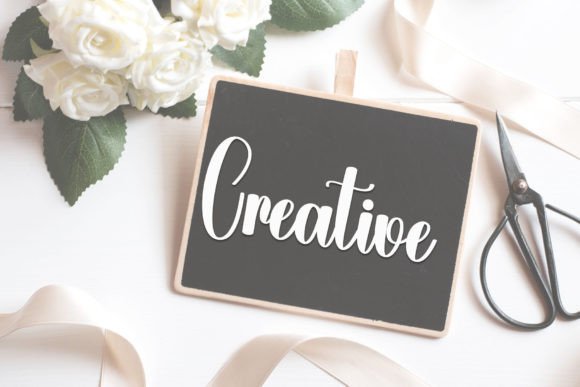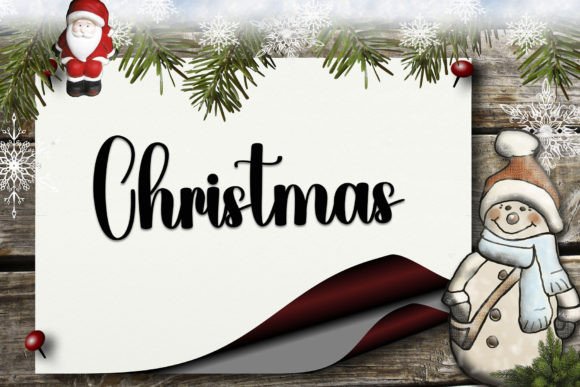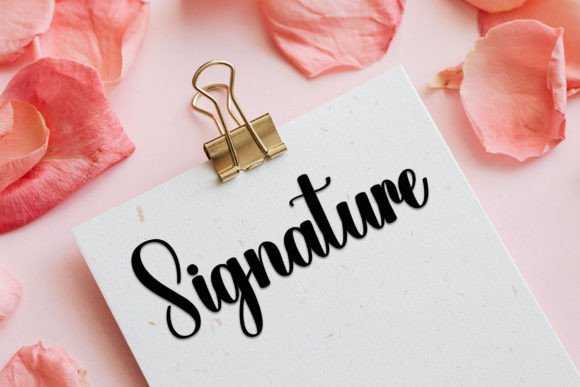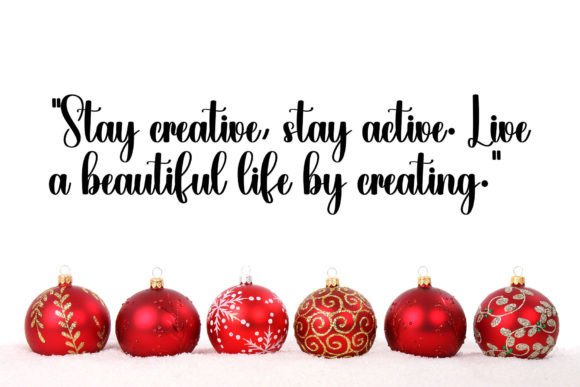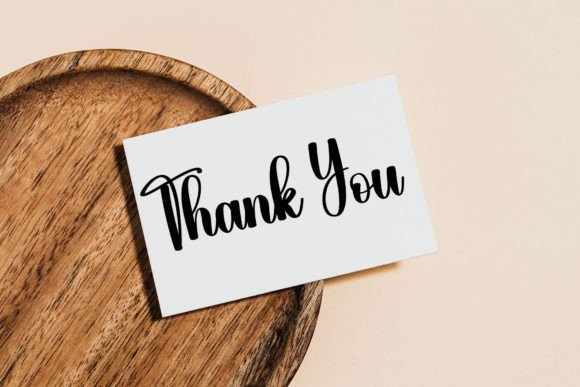
The Perfect Autumn Font: Elevate Your Designs with Timeless Elegance
I’ll never forget the time I was working on a fall-themed project for a client, and I just couldn’t find the right font to capture the essence of the season. The design needed to be elegant, yet modern, and I spent hours scouring the internet for the perfect match. That’s when I stumbled upon the Autumn Font, a trendy handwritten font that instantly became my go-to. In this article, I’ll share my experience with this beautiful font, its features, and how to make the most of it in your designs.
An Honest Review of Autumn Font
So, what makes Autumn Font so special? Here are a few things I love about it:
- ✨ Contemporary atmosphere: Autumn Font has a fresh, modern feel that’s perfect for designs that need a bit of sophistication.
- ✅ Impeccable form: The font’s classic calligraphy inspiration ensures that it always looks polished and refined.
- 💫 Elegant and classy: Whether you’re working on a luxury brand project or a seasonal design, Autumn Font adds a touch of elegance that’s hard to match.
- 🤔 Limited multilingual support: While Autumn Font covers the basics, it’s not designed for extensive multilingual use, so make sure to check the character set before committing to a project.
- ⚠️ Occasional kerning issues: As with any font, you might encounter some kerning issues, especially with certain letter combinations. Just be sure to review your text carefully.
- Experiment with OpenType features, such as ligatures and stylistic alternates, to add some extra flair to your text.
The Story Behind Autumn Font
Autumn Font was inspired by the timeless beauty of classic calligraphy. Its creator, a talented typographer, aimed to capture the essence of traditional lettering while infusing it with a modern twist. The result is a font that’s both elegant and contemporary, perfect for designers looking to add a touch of sophistication to their projects.
| Q: What type of projects is Autumn Font best suited for? | Autumn Font is versatile and can be used for a wide range of projects, from luxury branding and seasonal designs to wedding invitations and editorial layouts. |
| Q: Does Autumn Font support OpenType features? | Yes, Autumn Font supports OpenType features, including ligatures, stylistic alternates, and glyphs. You can access these features in compatible software like Adobe Photoshop and Illustrator. |
| Q: Is Autumn Font suitable for body text? | While Autumn Font is beautiful, it’s primarily designed for display text. For body text, you might want to choose a font with better readability and legibility. |